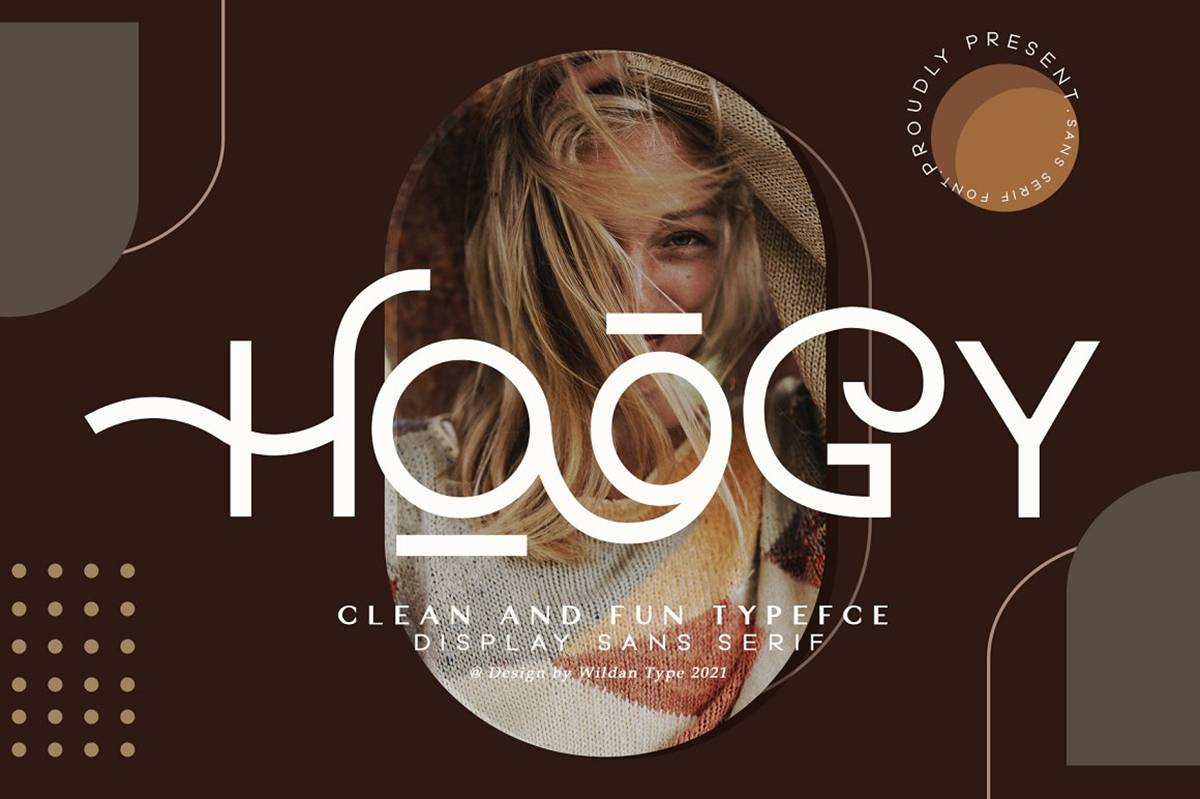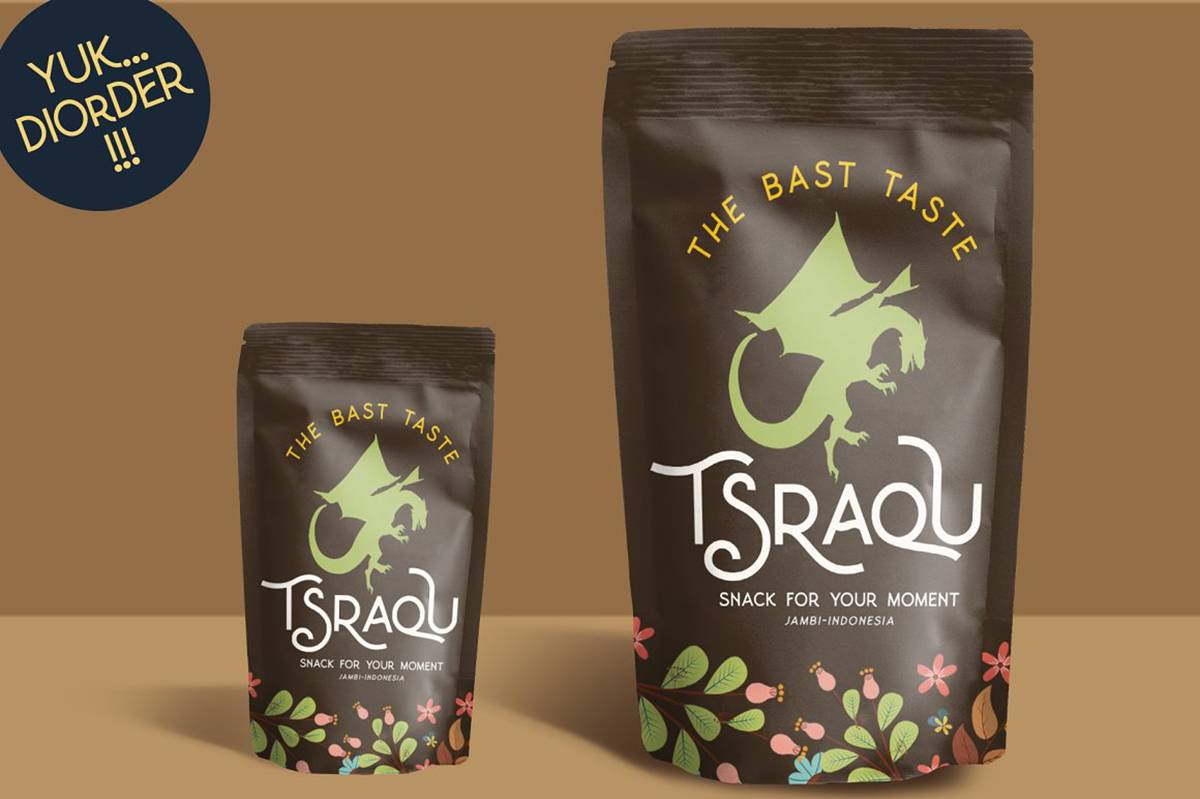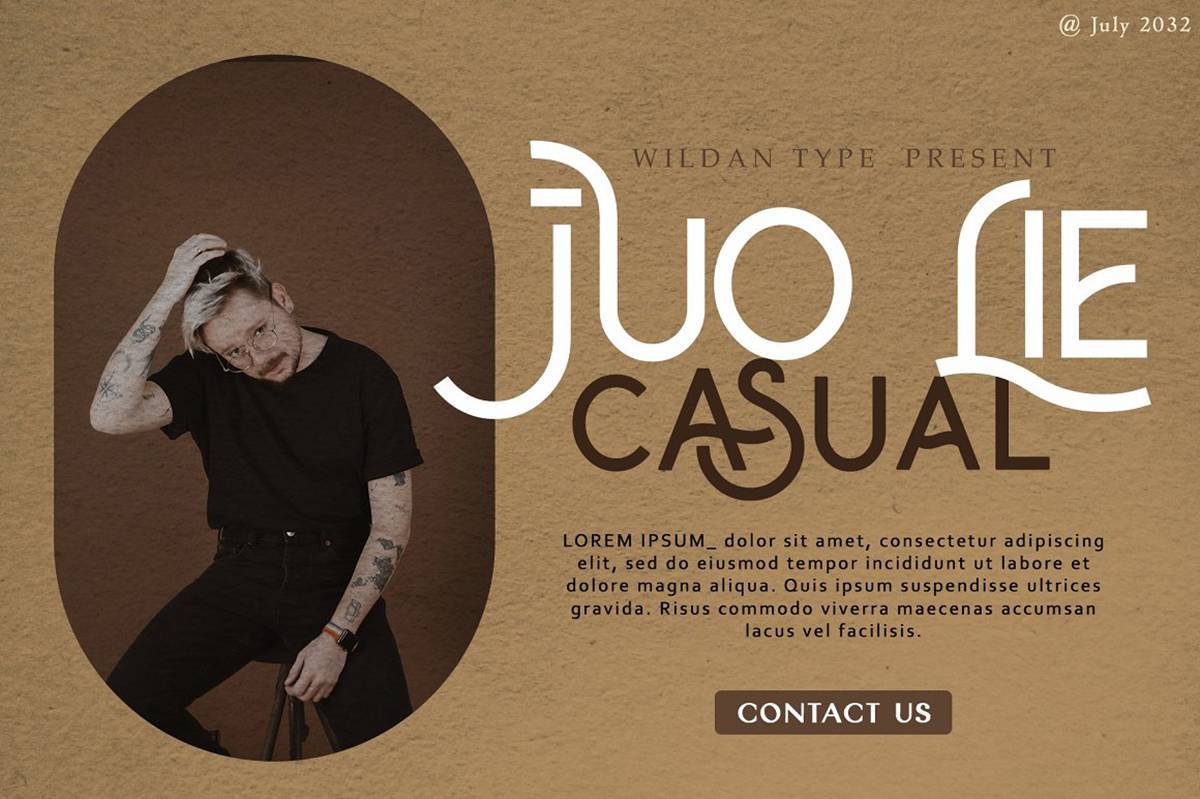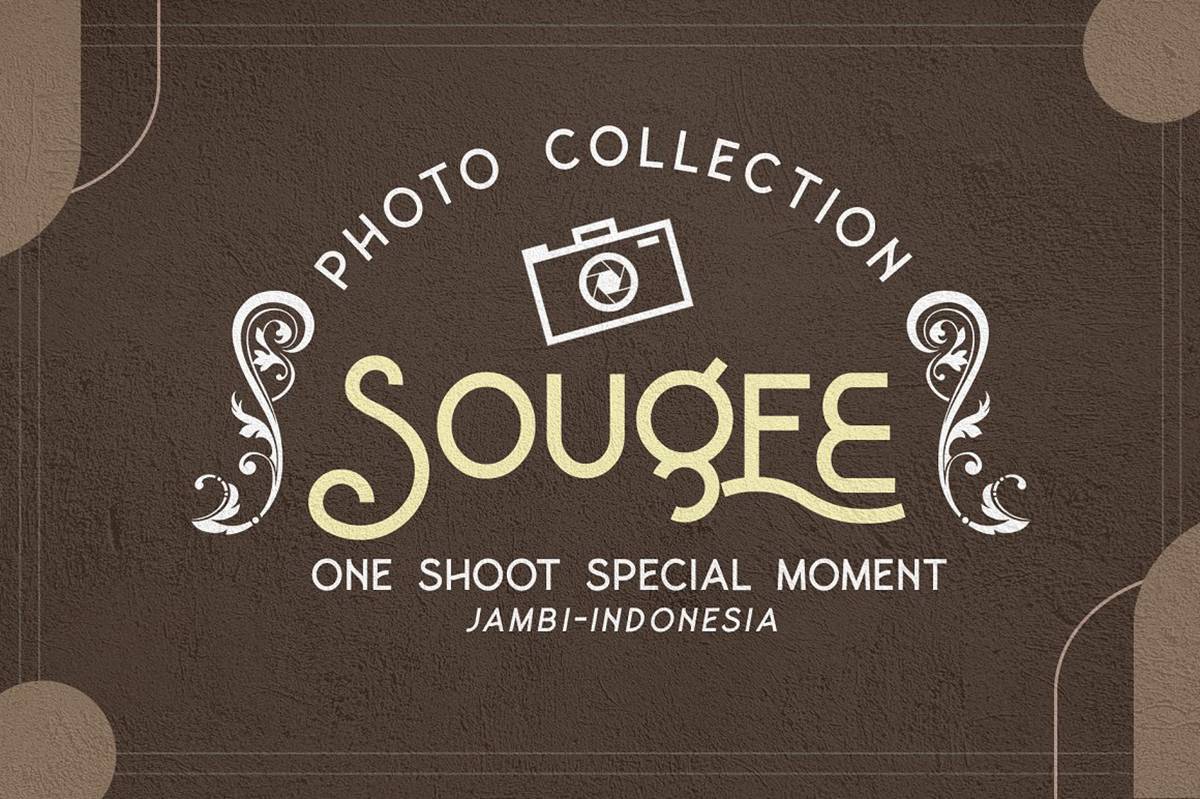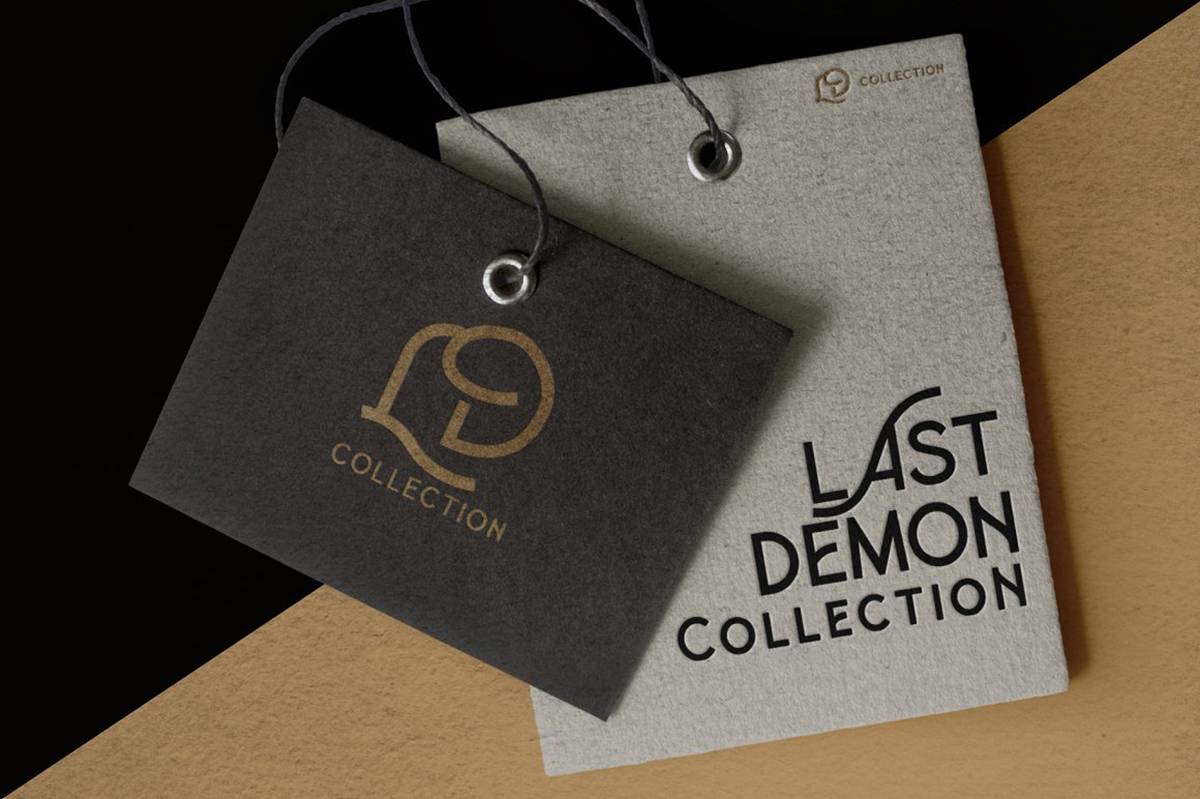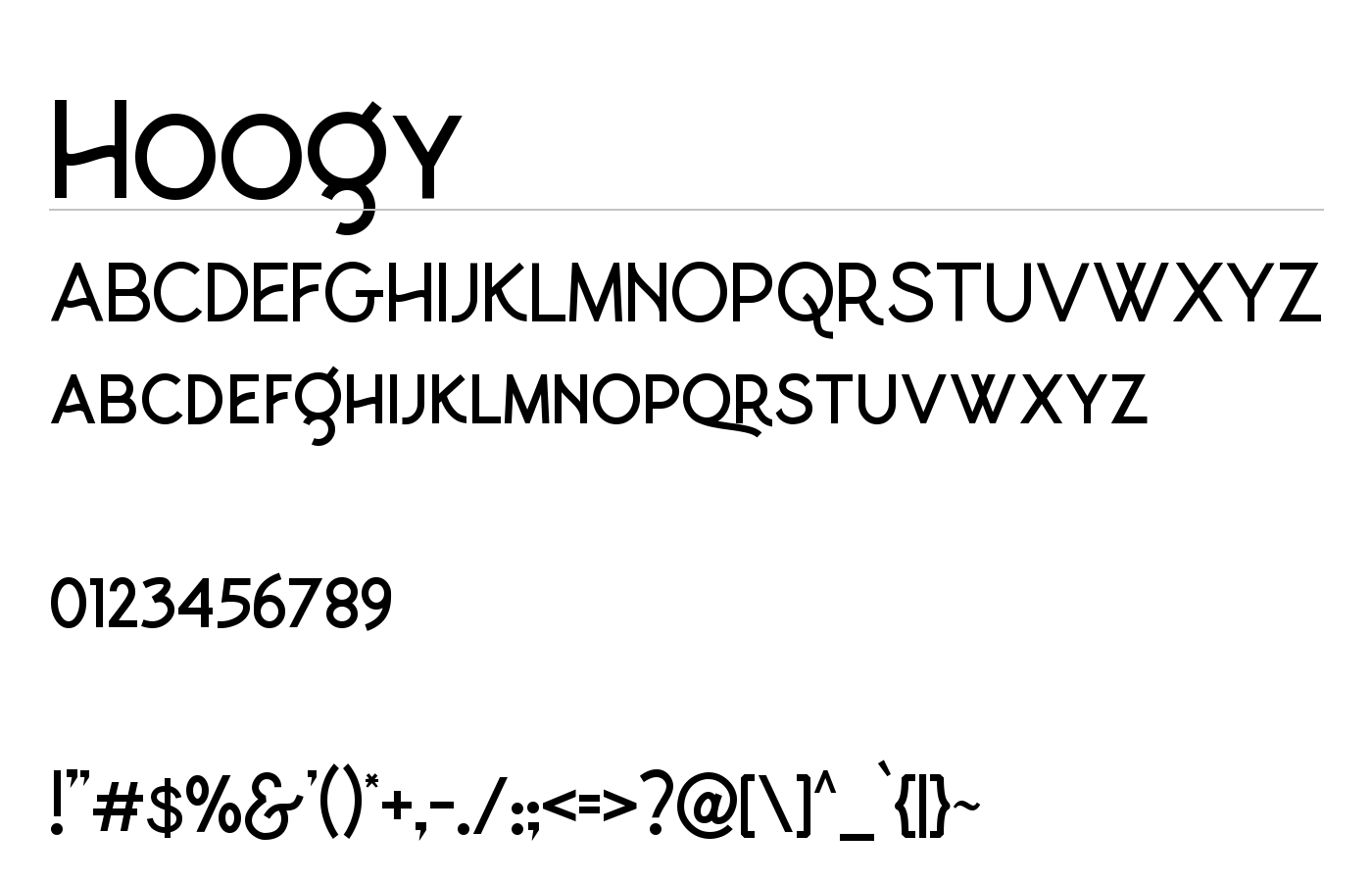
Hoogy is a modern sans serif font with clean, geometric forms and a light to regular weight that makes it feel airy and elegant. Its unique letter details, like the curved tail on the Q and the stylized ampersand, add a playful and contemporary touch while maintaining readability. This font is well-suited for branding, editorial headlines, and stylish digital projects where a fresh and sophisticated look is desired.
Hoogy Font
About Hoogy Font
| Font family | Hoogy Font |
| Release date | 2021-07-23 |
| Designer | Wildan Suprian Syah |